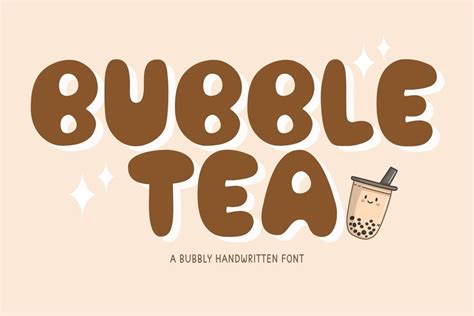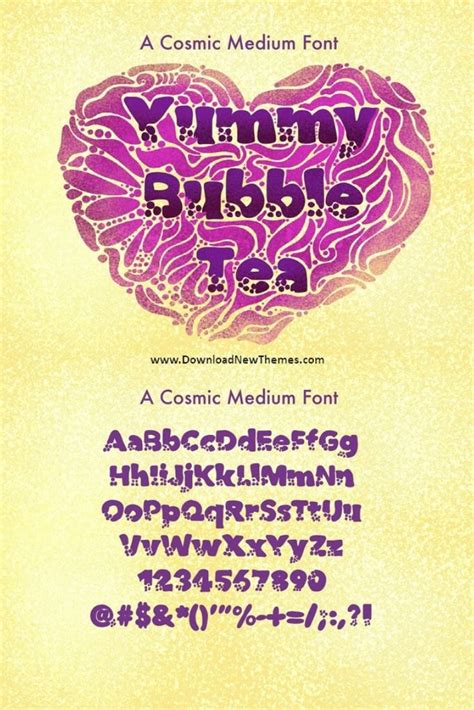
Best Bubble Tea Font: Stylish & Fun Typefaces
Readers, have you ever pondered the importance of a good font in branding, especially for something as visually appealing and trendy as bubble tea? A well-chosen typeface can make all the difference in conveying the right vibe and attracting customers. The font you use for your bubble tea shop's logo, menu, and marketing materials can be just as important as the quality of your boba itself.
We've delved deep into the world of font selections, analyzing numerous typefaces and their impact on the bubble tea industry. Our mission is to help you stand out from the crowd and captivate your audience with a visually engaging brand identity.
Why Font Choice Matters for Bubble Tea
Choosing the right font for your bubble tea business isn't just about aesthetics; it's about creating a cohesive brand experience. Your font should reflect the essence of your brand, whether it's playful, sophisticated, modern, or traditional. A well-selected typeface can communicate your unique identity and attract the right kind of customers.
Imagine walking down a bustling street filled with bubble tea shops. Which one catches your eye first? The one with a font that sparks curiosity, evokes a sense of fun, or simply looks inviting. A compelling font can be the key to making your business memorable and attracting new patrons.
The Power of Typography
Typography goes beyond mere letters; it's a powerful tool for communication. Each font has its own personality, conveying specific emotions and associations. A playful font like Comic Sans might be perfect for a whimsical bubble tea shop with brightly colored interiors and a focus on fun. Meanwhile, a more elegant font like Garamond could be suitable for a sophisticated bubble tea establishment with a focus on high-quality ingredients and a refined atmosphere.
Font and Brand Identity
The font you choose should align with your brand identity. If you're aiming for a modern and minimalist aesthetic, a clean sans-serif font like Helvetica or Arial might be ideal. For a more traditional and classic vibe, you could opt for a serif font like Times New Roman.
Readability and Legibility
Remember, the primary purpose of a font is to be readable. Don't get too caught up in novelty at the expense of clarity. Make sure your chosen font is easy to read, especially on your menus and signage.
Top Bubble Tea Fonts
Now that you understand the importance of font selection, let's explore some of the best bubble tea fonts that can elevate your brand's visual appeal and captivate your customers.
1. Playful and Fun Fonts
Fun and playful fonts are perfect for bubble tea shops that want to convey a lighthearted and energetic vibe. These fonts often feature rounded curves, whimsical characters, and bold colors.
- Bubblegum Sans: This font is undeniably cute, with its rounded edges and playful characters. It's perfect for creating a sense of fun and excitement.
- Poppins: While Poppins is a versatile sans-serif font, it also has a playful touch with its slightly rounded shapes. It's a great choice for creating a friendly and approachable brand image.
- Bebas Neue: This bold and chunky sans-serif font is great for adding a touch of fun and energy to your branding. It's excellent for logos, headlines, and signage.
2. Modern and Minimalist Fonts
Modern and minimalist fonts often emphasize clean lines, sharp edges, and geometric shapes. They are perfect for bubble tea brands that want to convey a sleek and sophisticated aesthetic.
- Lato: This sans-serif font is clean, modern, and versatile. It comes in various weights, allowing you to create a balanced and harmonious design.
- Open Sans: Open Sans is known for its readability and versatility. It's a great choice for a modern and minimal brand identity.
- Roboto: This well-respected sans-serif font is known for its clean lines and geometric shapes. It's a great choice for a modern and minimalist bubble tea brand.
3. Sophisticated and Elegant Fonts
Sophisticated and elegant fonts are perfect for bubble tea shops that want to convey a sense of quality and refinement. These fonts often feature classic designs, refined letterforms, and a sophisticated feel.
- Garamond: This classic serif font is known for its elegance and sophistication. It's a great choice for a traditional and refined bubble tea brand.
- Playfair Display: This serif font is known for its elegant curves and refined letterforms. It's a great choice for creating a sophisticated and classy bubble tea brand image.
- Merriweather: This serif font is known for its readability and elegant curves. It's a great choice for a sophisticated and approachable brand identity.
4. Unique and Quirky Fonts
If you want to stand out from the crowd, consider using a unique and quirky font that reflects your brand's personality. These fonts often feature unusual shapes, bold colors, and creative designs.